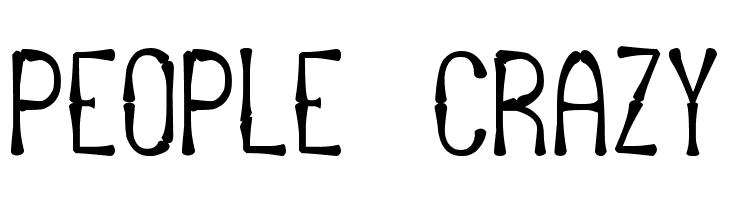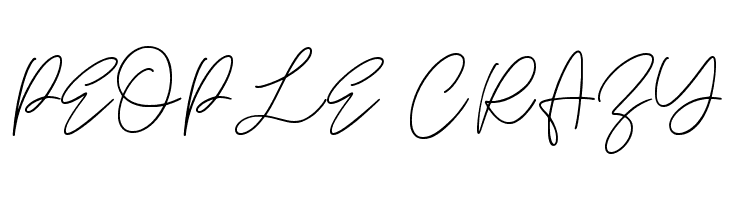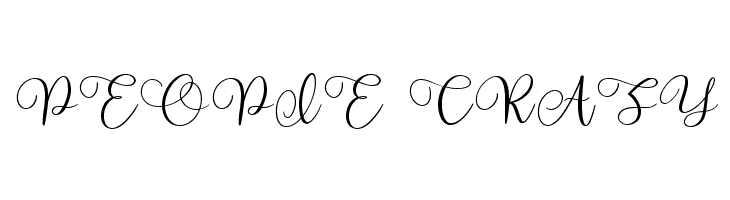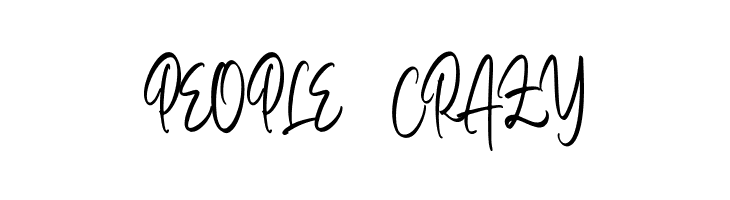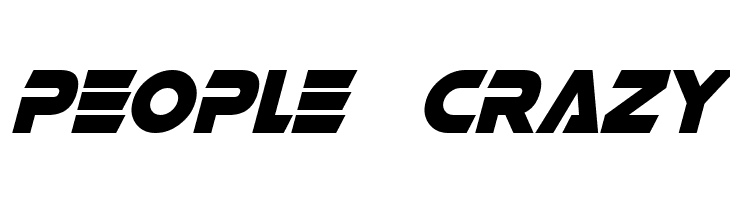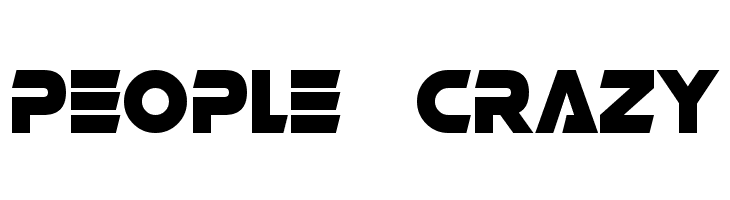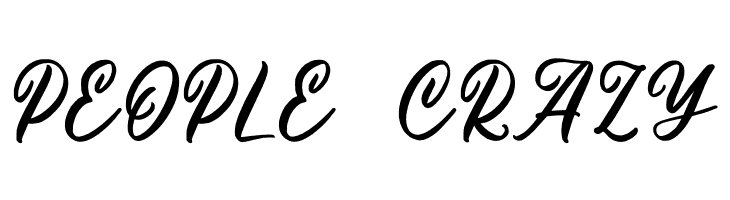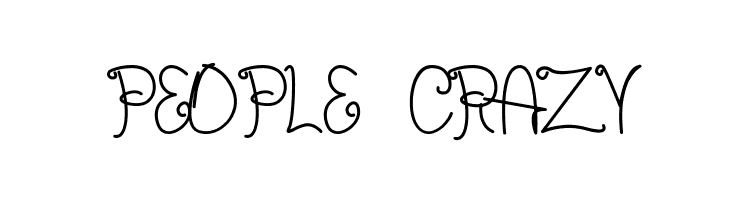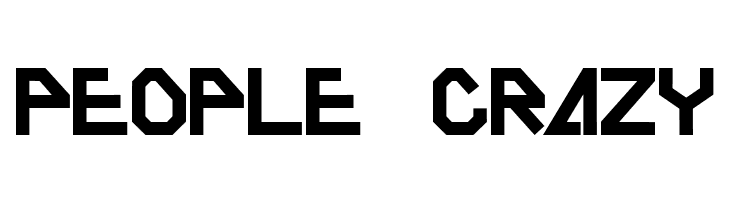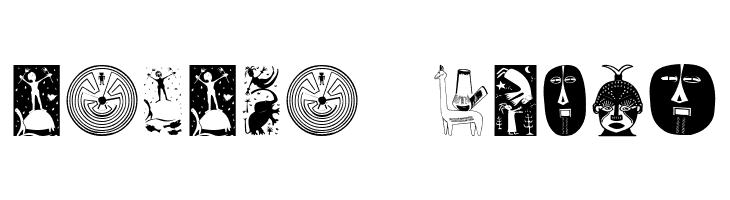
A whimsical, hand-drawn font with decorative curls and playful style.
A modern, geometric font with clean lines and a futuristic style.
An elaborate and decorative font with intricate swashes and flourishes.
A dynamic, expressive handwritten font with fluid, flowing letterforms.
A modern, elegant script font with a flowing, handwritten style.
A serif font with sharp, angular serifs and a medieval touch.
A decorative font with bat motifs, perfect for Halloween themes.
A whimsical font with letters and numbers inside car shapes, perfect for playful designs.
A whimsical font with black cat silhouettes integrated into each character.
A bold, decorative font with an eye motif integrated into each character.
A whimsical, outlined decorative font with playful serifs and curves.
A playful font with letters inside dog head silhouettes, perfect for pet-themed designs.
A whimsical font with cartoon dogs accompanying each character, perfect for playful designs.
A whimsical, spooky-themed font with bat motifs and decorative elements.
A bold, italicized font with a modern, dynamic style.
A decorative collection of symbols inspired by traditional African artifacts.
A playful, hand-drawn font with uneven strokes and a whimsical style.
A lively, handwritten font with playful and irregular strokes.
A whimsical and decorative font with playful curls and loops, ideal for creative projects.
A bold, playful font with a rounded, cartoon-like style.
A bold, playful font with rounded, bubbly characters and a whimsical style.
An elegant script font with flowing, cursive style and intricate flourishes.
A pixelated, retro-style font with a blocky, digital appearance.
A modern, geometric font with a tall, narrow, and consistent stroke design.
A digital-style font with segmented lines, ideal for tech-themed designs.
A bold, outlined font with a modern and decorative style.
A bold, outlined font with a modern and geometric style.
A bold, expressive script font with flowing, cursive letterforms.